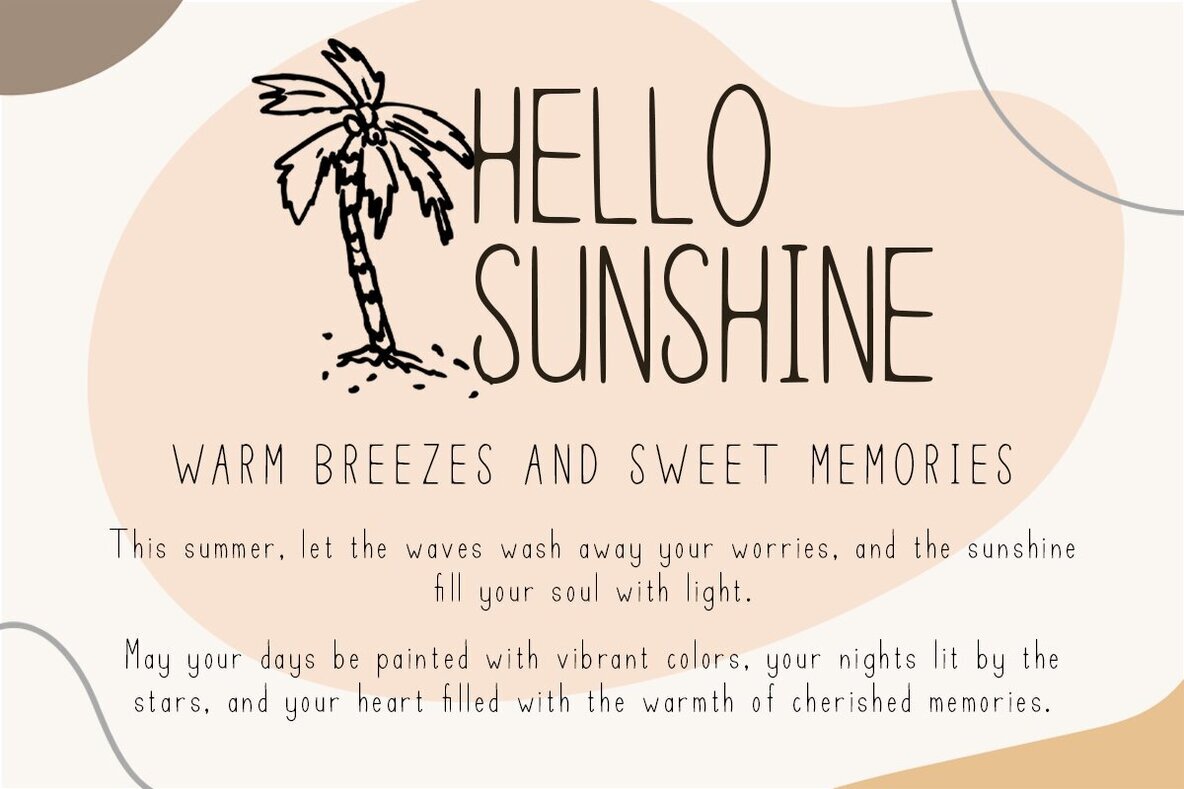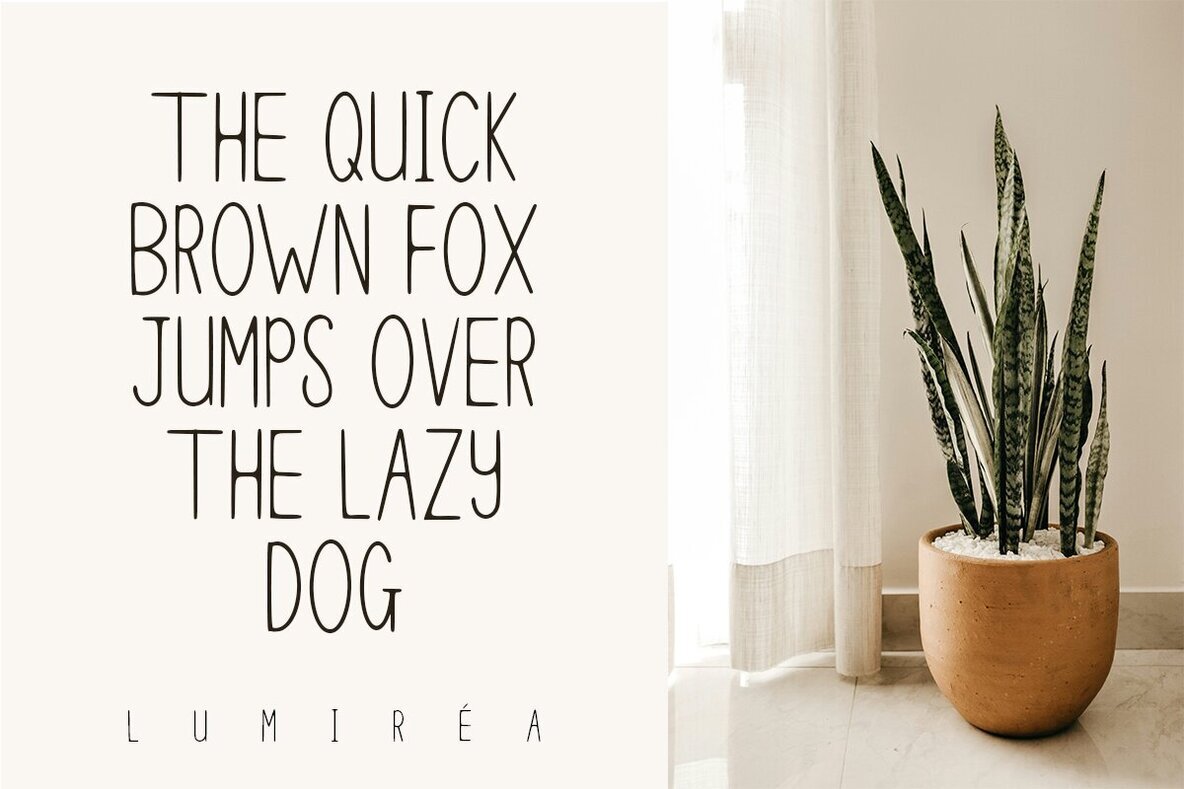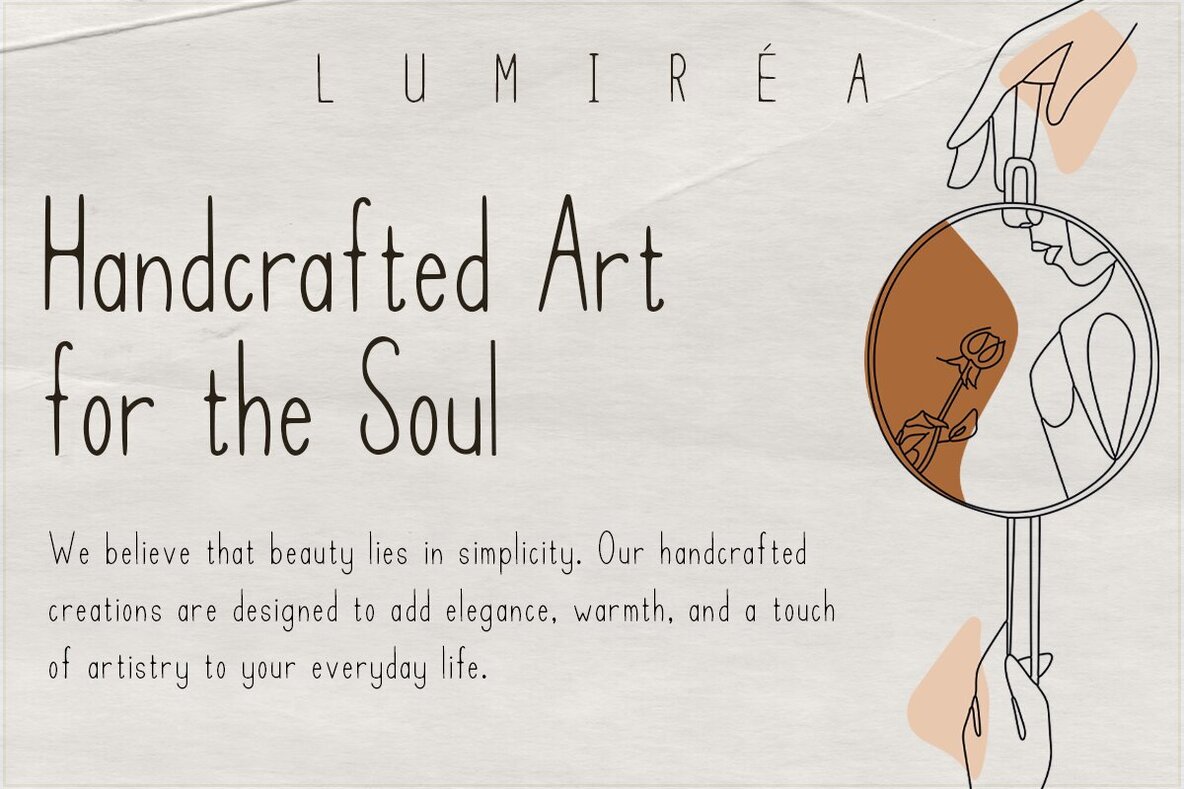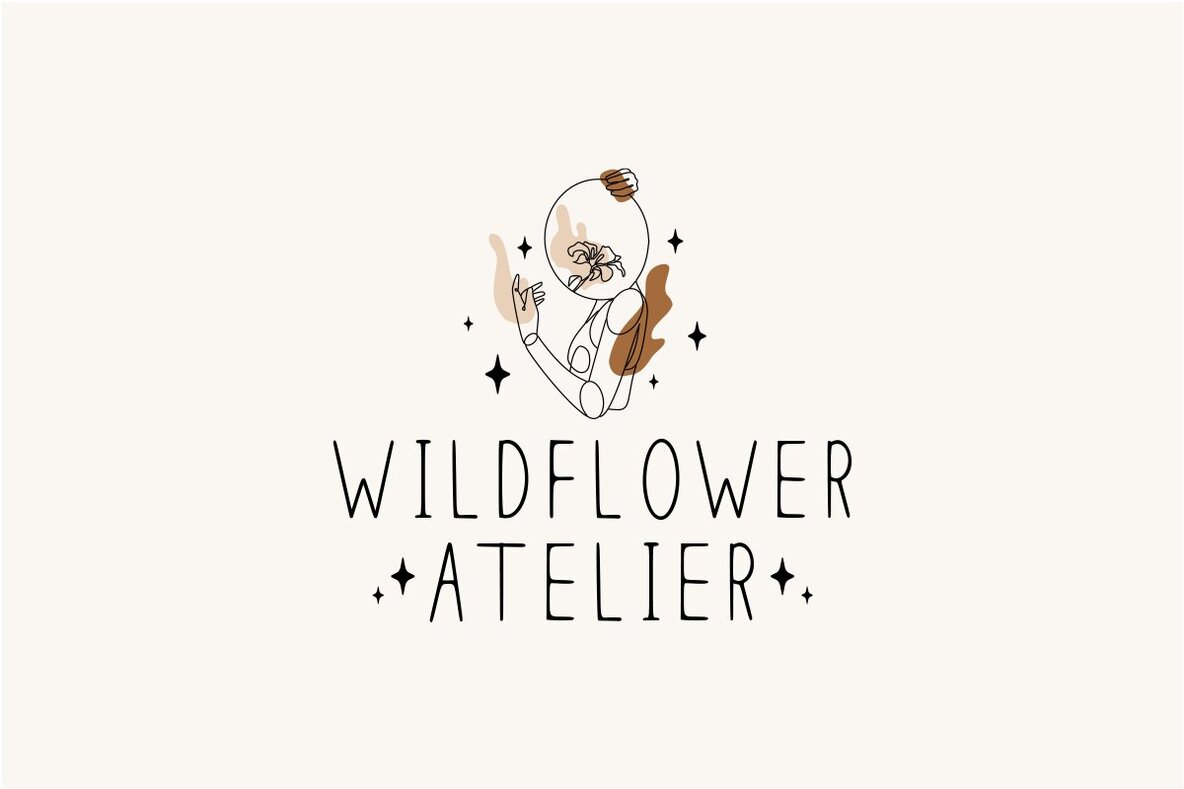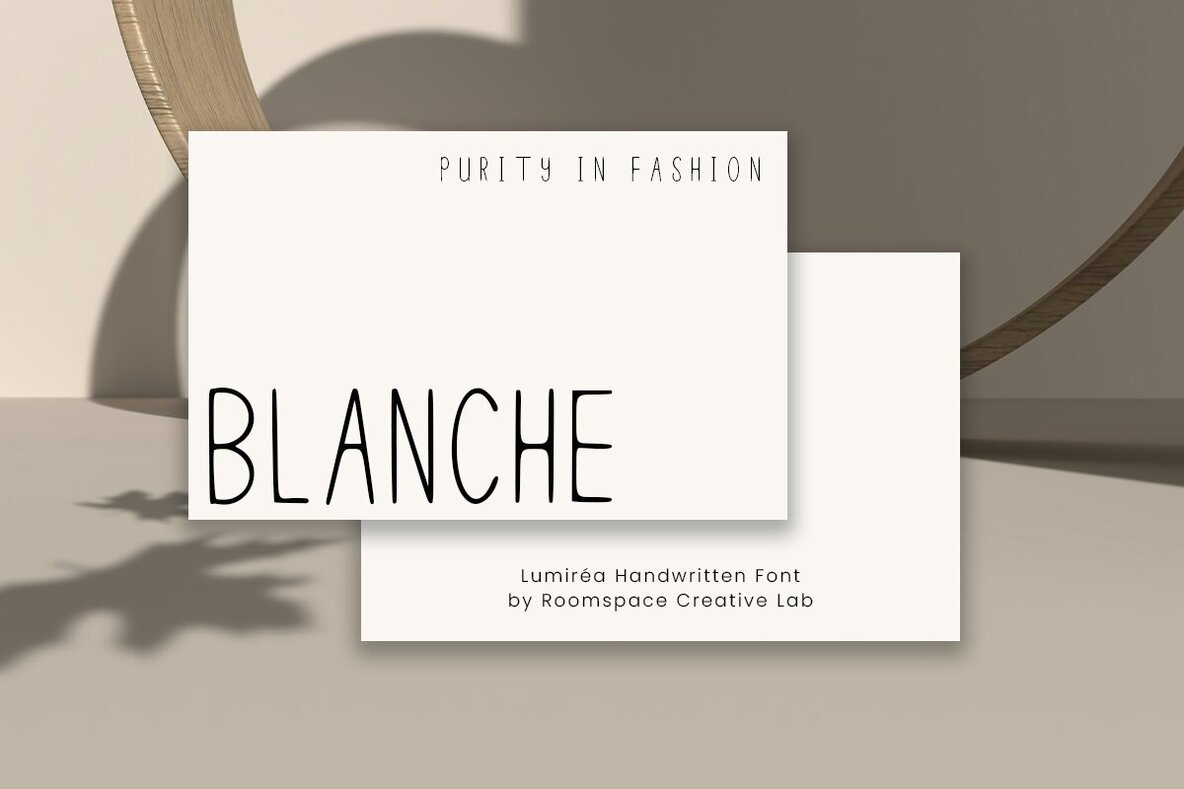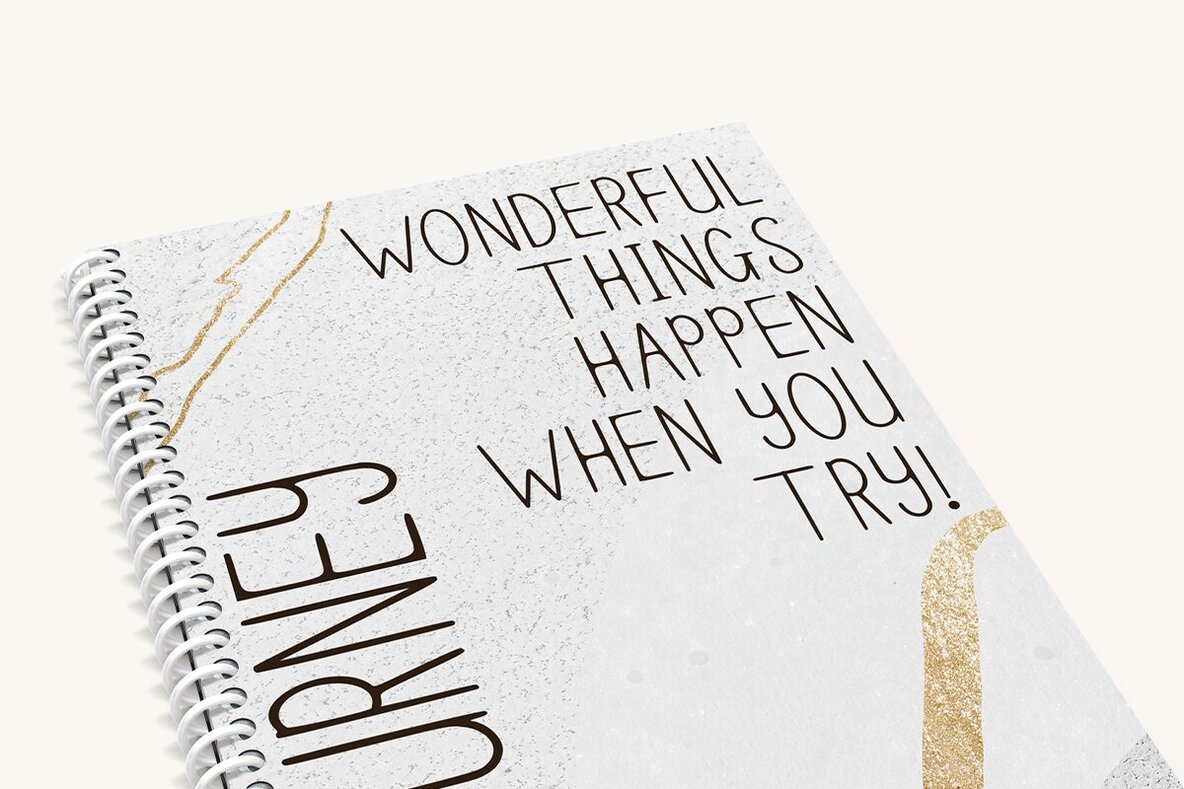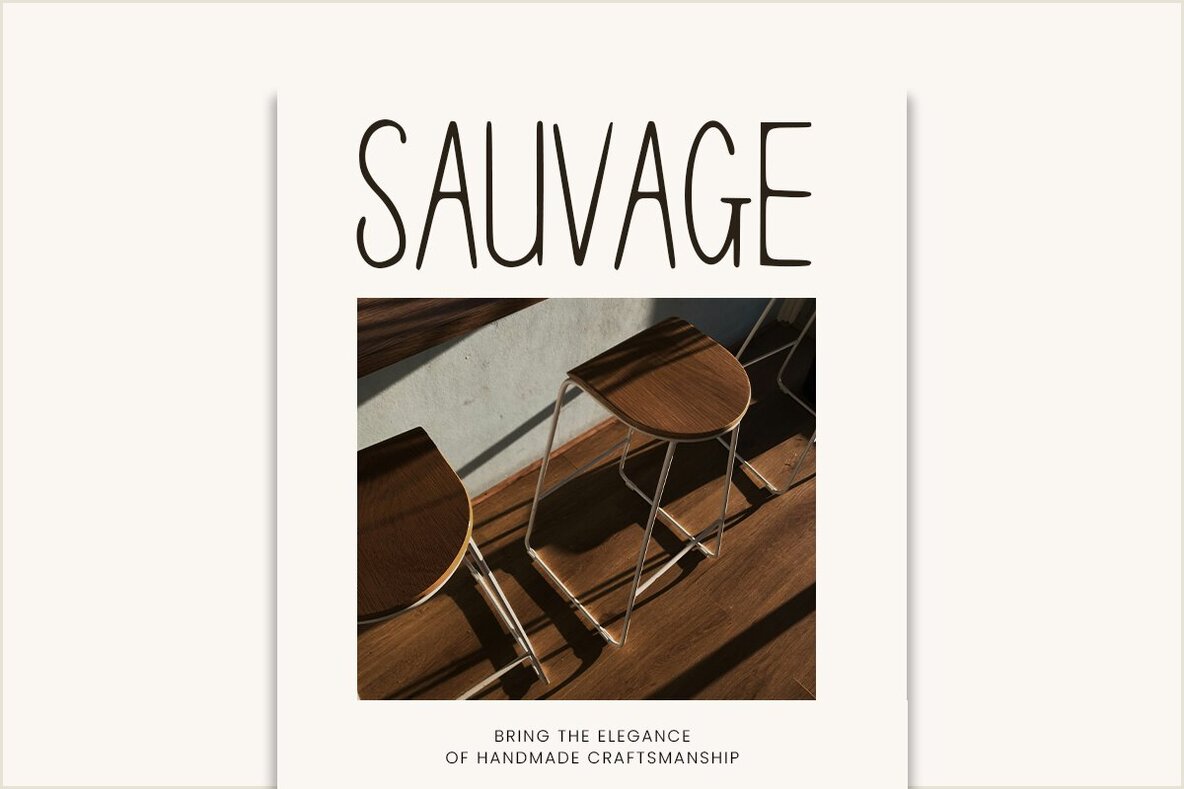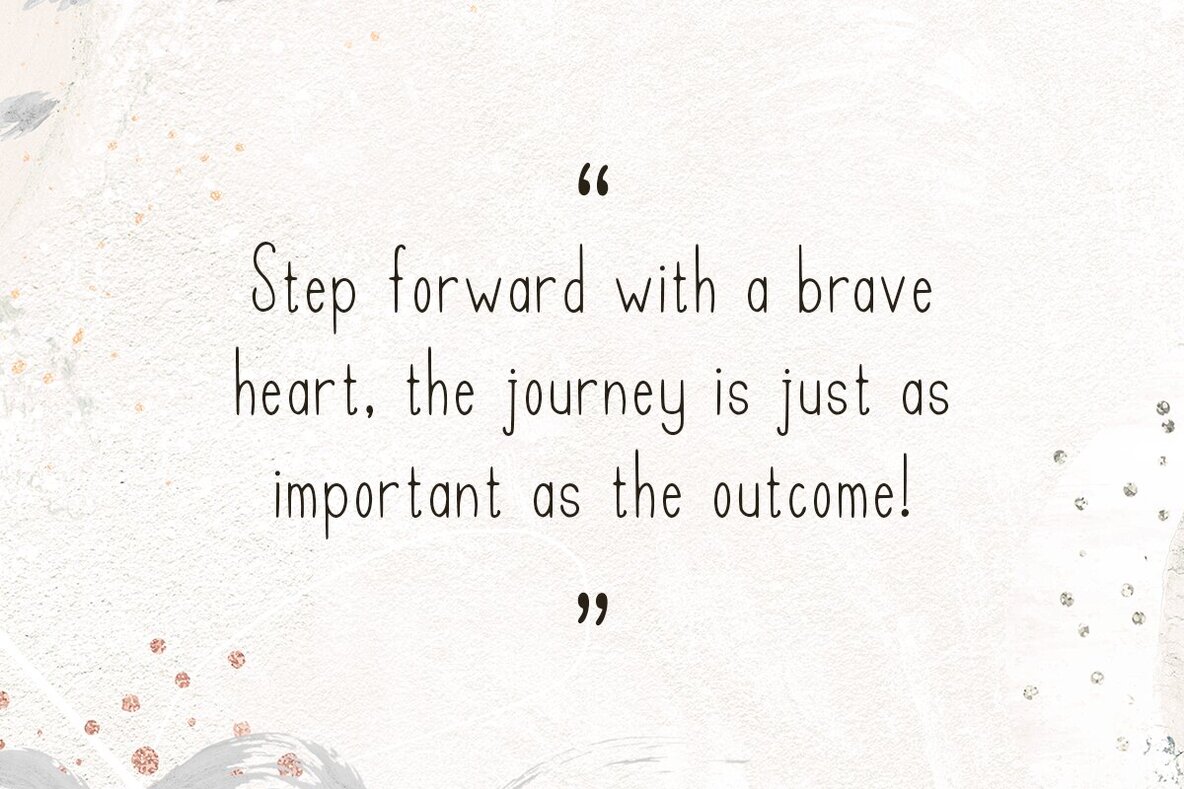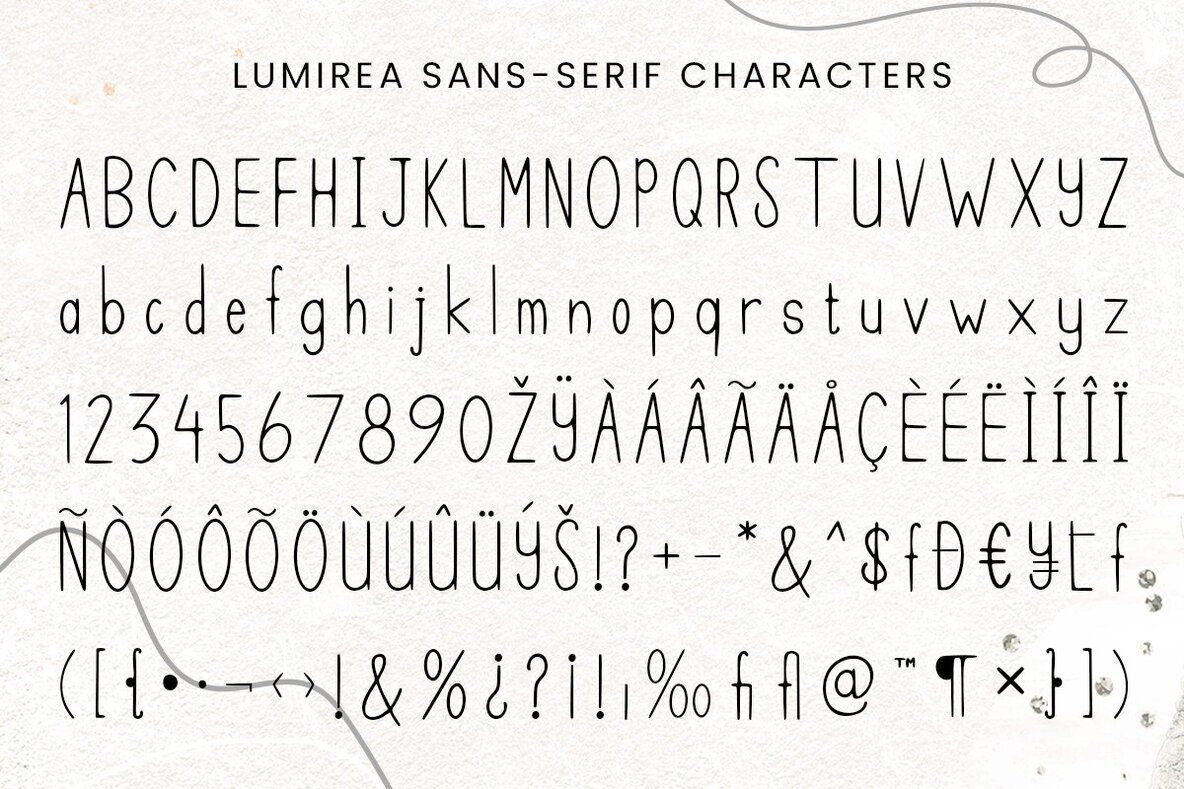
Lumirea Font
Lumirea Regular
Lumirea Aesthetic Handwriting Font, a uniquely crafted handwritten typeface designed to bring a touch of modern elegance to any project. With its stunning aesthetic and playful curves Lumirea combines creativity and readability, making it the perfect choice for everything from logos and branding to social media graphics and creative projects. Its modern futuristic vibe ensures versatility for various applications while maintaining a high level of legibility. Feature: